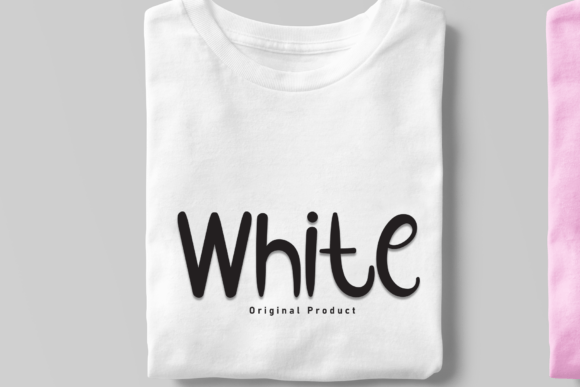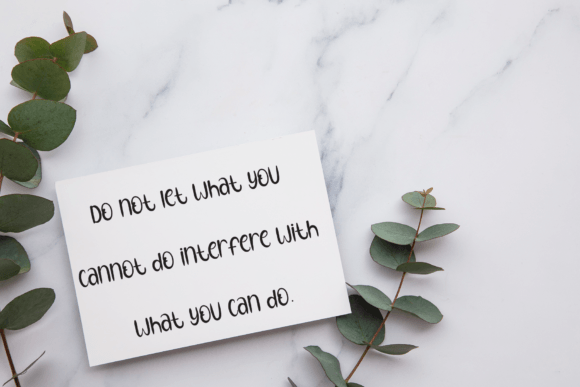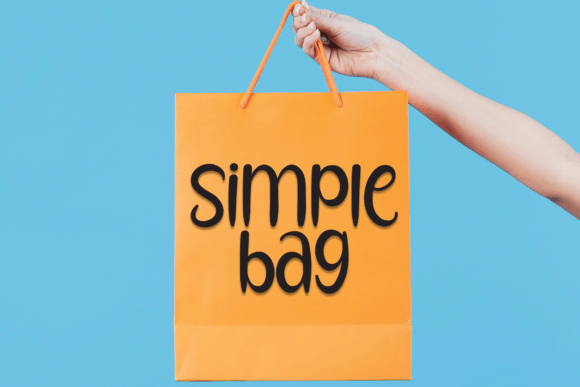
Introduction to Holiday Planner Font
As you sit at your desk, surrounded by scraps of paper, colored pens, and a half-finished design project, you finally find the perfect font to bring your vision to life. It’s that moment when all the pieces fall into place, and your creative juices start flowing. Introducing the Holiday Planner Font, a hand-scripted display wonder that will radiate a tender and jovial aura in your designs.
This delightful font is a treasure trove of creative possibilities, perfect for embellishing wedding invitations, crafting personalized cards, or introducing an element of whimsicality into any design project. As a valuable resource for designers, the Holiday Planner Font offers a free download option, allowing you to elevate your high-quality designs with a unique touch.
With its transparent background, this font is incredibly versatile, making it easy to integrate into any design project. Whether you’re working on a holiday-themed campaign or a simple greeting card, the Holiday Planner Font is sure to add a touch of magic to your creations.
Key Features of Holiday Planner Font
- High-quality design resource ideal for creative projects, such as holiday planners, journals, and calendars.
- Features a transparent background, allowing for easy customization and integration with any design element.
- Designed with a festive and fun aesthetic, perfect for holiday-themed projects and promotional materials.
- Unique characteristics include a playful, handwritten style and decorative flourishes, adding a touch of personality to any project.
Honest Review: Holiday Planner Font
What works well: ✨ The font has a clean, modern design that’s perfect for a creative project like a holiday planner. The transparent background makes it easy to overlay text and graphics. The font comes in a range of weights, from light to bold, which gives you flexibility when designing.
What I liked most about the Holiday Planner Font is its versatility. I used it for a holiday-themed social media post and a blog article, and it worked beautifully in both contexts. The font is also highly legible, making it perfect for long blocks of text.
Limitations: ⚠️ While the font is high quality, it’s not ideal for a professional business setting. The design is a bit too playful for a corporate environment, but that’s not necessarily a bad thing!
- High quality design
- Range of weights
- Perfect for creative projects
Holiday Planner Font
The Holiday Planner Font is perfect for:
- Creating invitations and party decorations
- Designing holiday-themed social media graphics
- Adding a touch of elegance to your blog or website